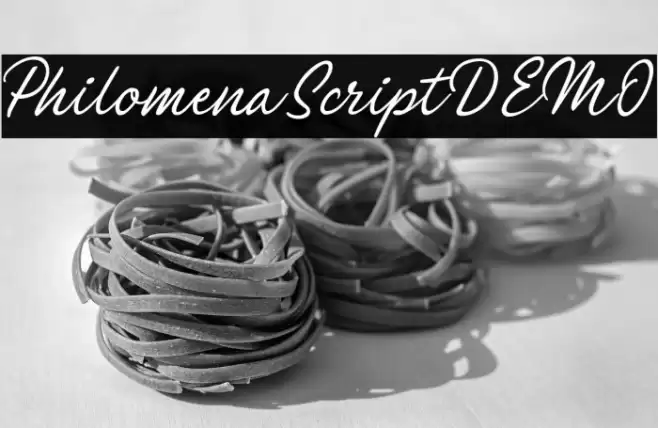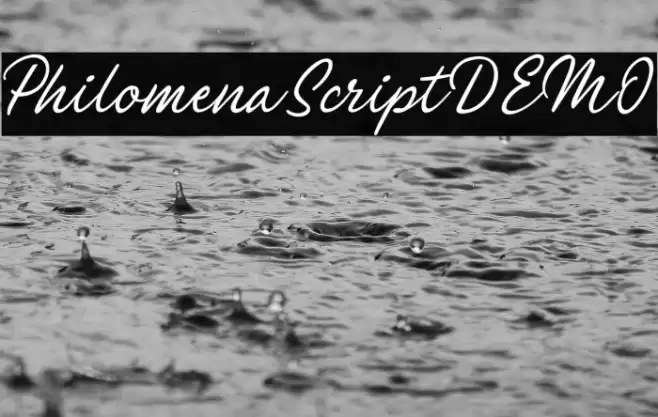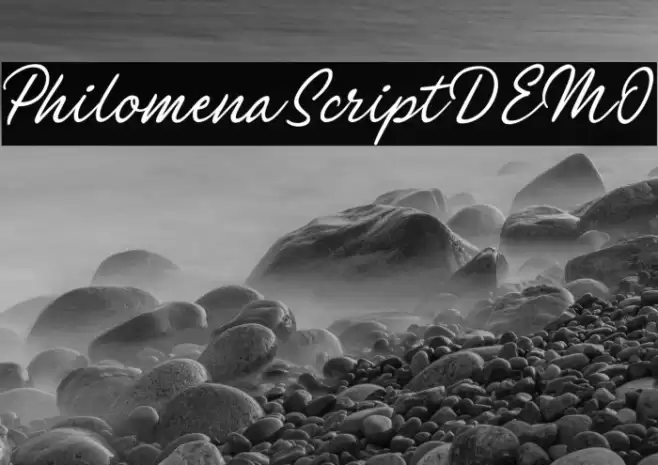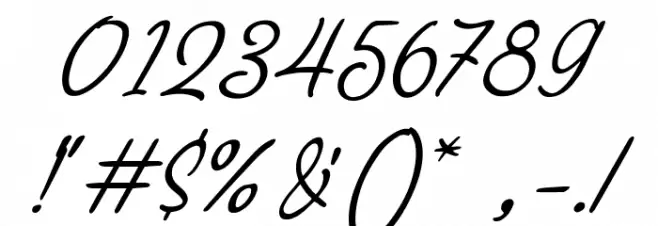
PhilomenaScriptDEMO Font
PhilomenaScriptDEMO Description
This elegant script font features a flowing, cursive style with smooth, connected strokes that give it a handwritten appearance. The uppercase letters are ornate and slightly slanted, adding a touch of sophistication and grace. The lowercase letters maintain a consistent flow, enhancing readability while retaining a stylish flair. The numerals are well-balanced, complementing the overall aesthetic. Special characters are thoughtfully designed to match the script's fluidity. This font exudes a sense of elegance and is perfect for projects that require a personal, artistic touch.
A flowing, elegant script font with a handwritten appearance from Regular fonts.
- Proposed Projects: Ideal for wedding invitations, greeting cards, branding, and elegant logo designs.
- Overall Style: Elegant, Handwritten
- Use Case: Logos, Invitations, Decorative text